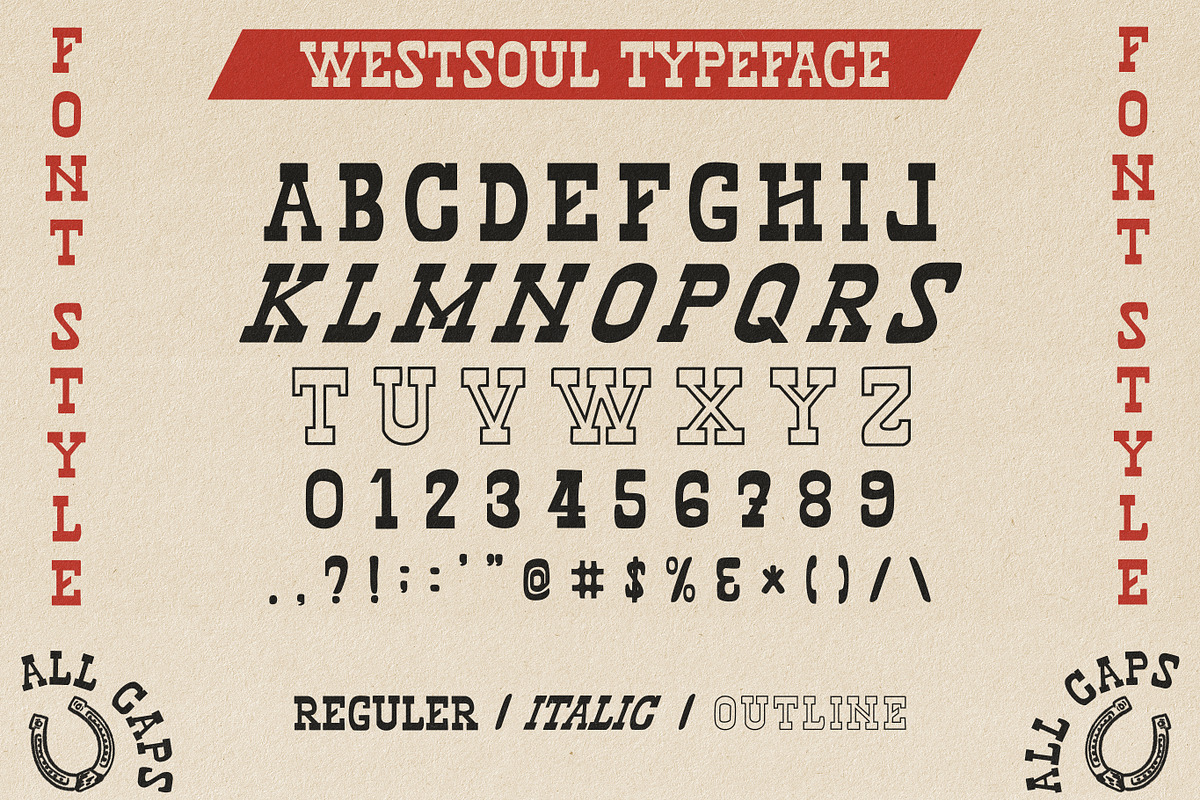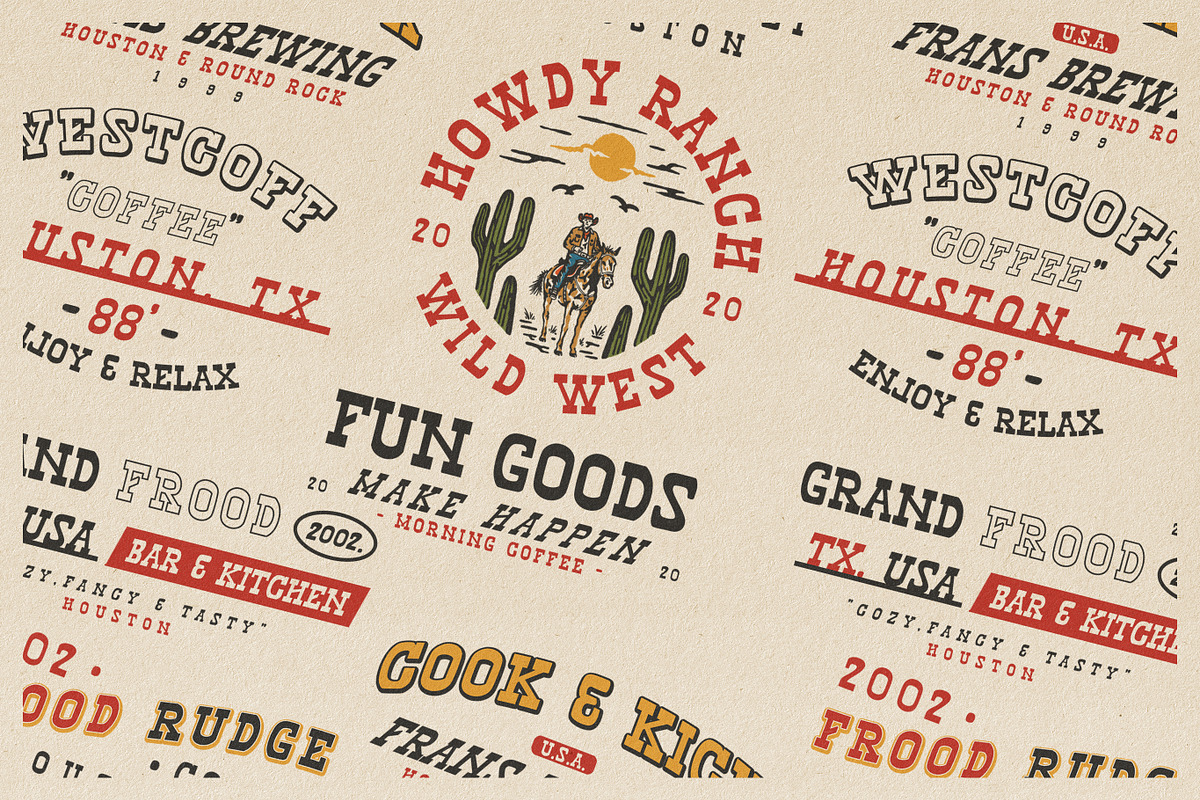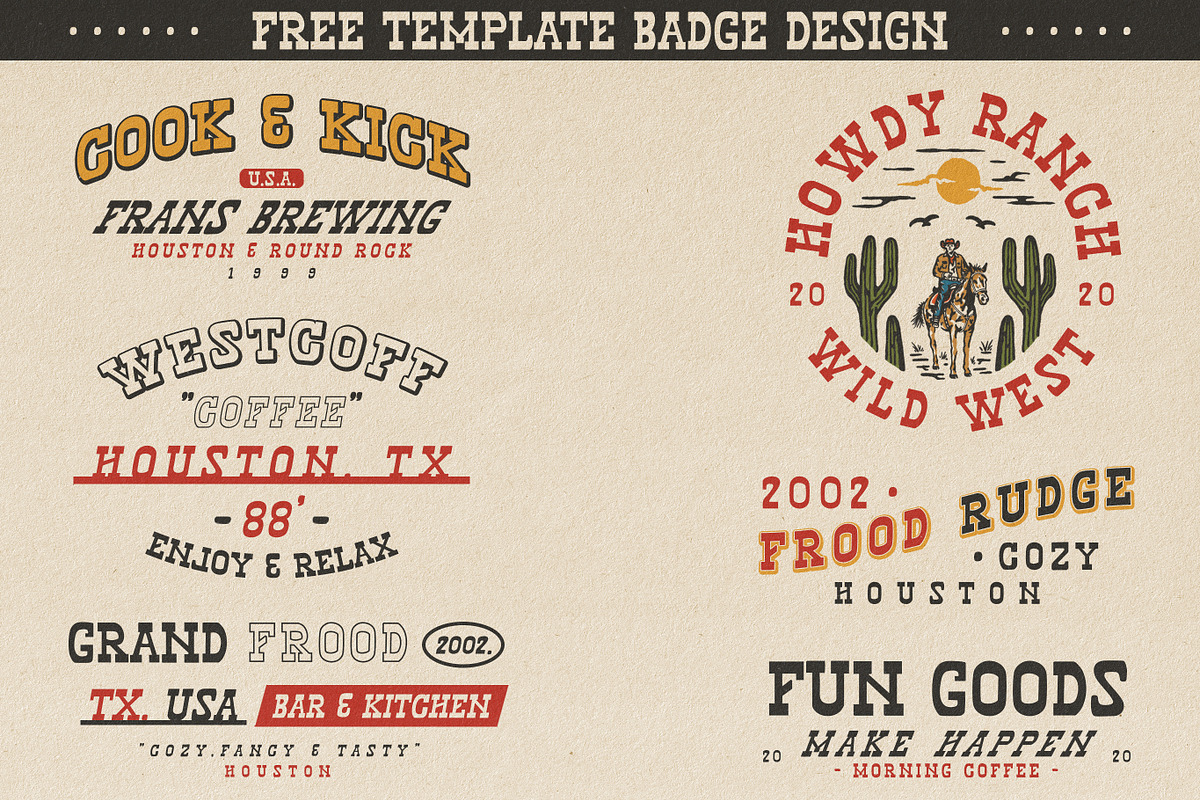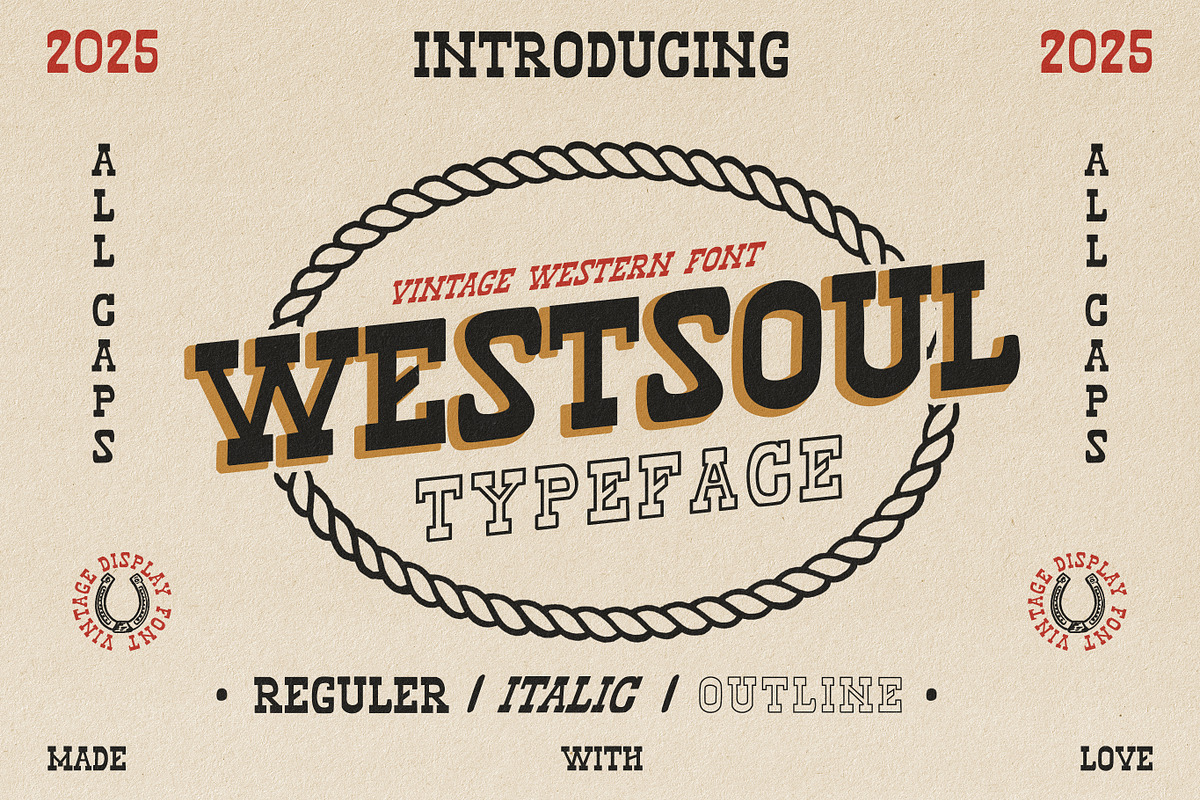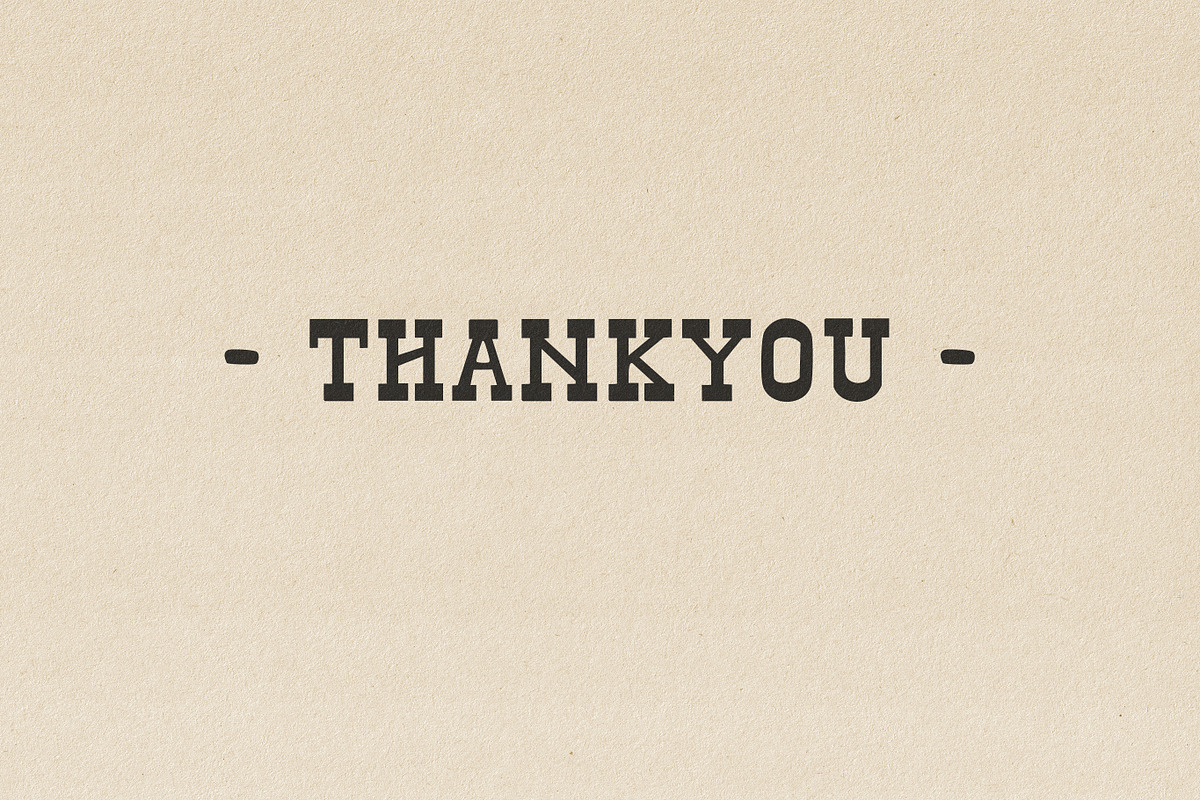
Westsoul Vintage Slab Serif
Westsoul – Vintage Western Typeface
Introducing Westsoul, a bold and rugged vintage western font inspired by classic cowboy posters and old saloon signage. Designed with strong character and authentic charm, this all-caps typeface brings a nostalgic western vibe to your designs.
Perfect for logos, branding, apparel, packaging, signage, and headlines, Westsoul captures the adventurous spirit of the Wild West while remaining versatile for modern projects.
All caps
Three styles: Regular, Italic, Outline
Perfect for vintage, western, and retro designs
Bring a touch of the frontier to your design journey with Westsoul Typeface, where vintage style meets bold creativity.